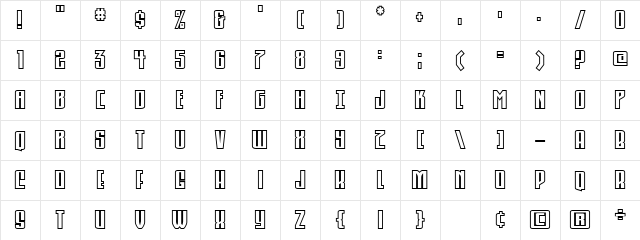
Complete CCPhasesOnStun Medium glyph index. Displaying only characters natively supported by CCPhasesOnStun Medium font.
CCPhasesOnStun is a composed and adaptable typeface that performs quietly and consistently across a wide range of design contexts.